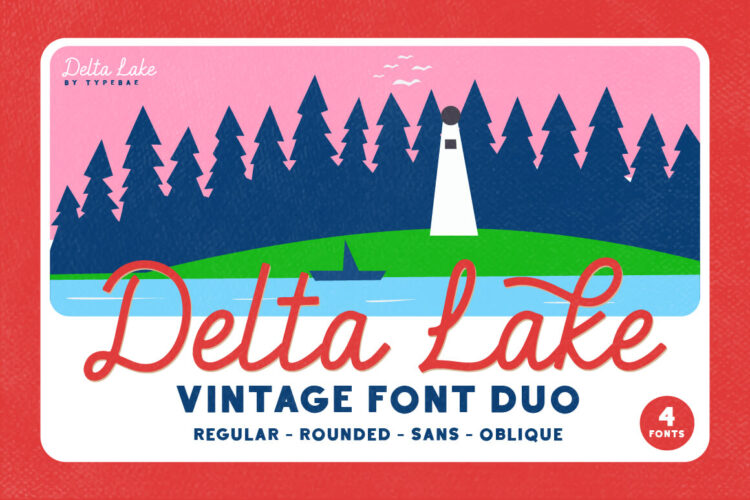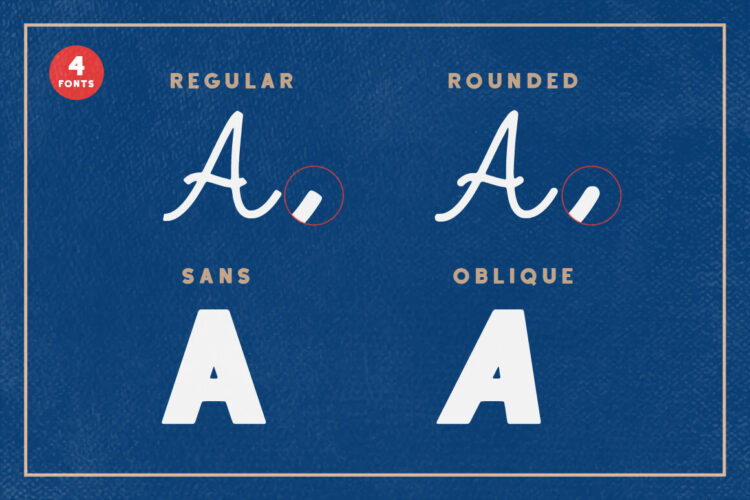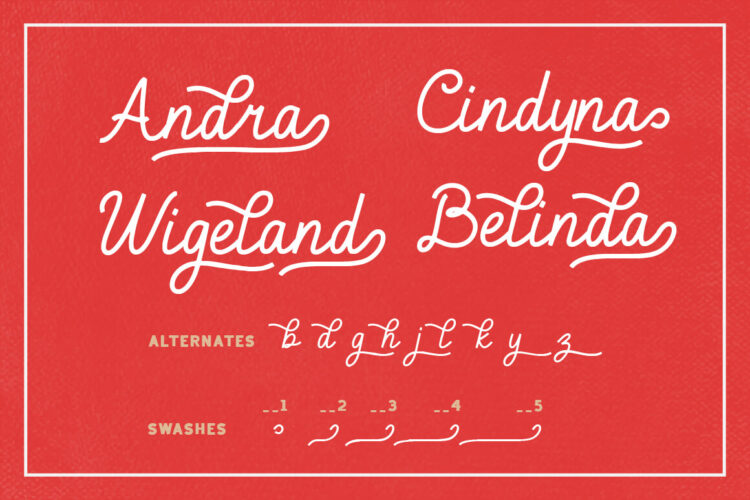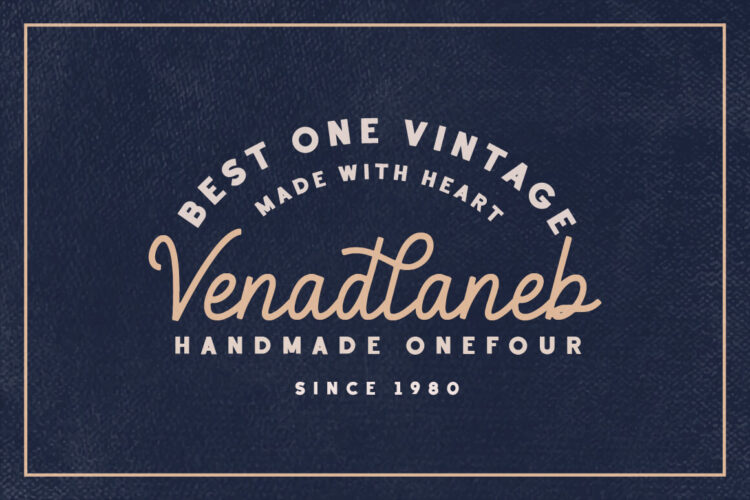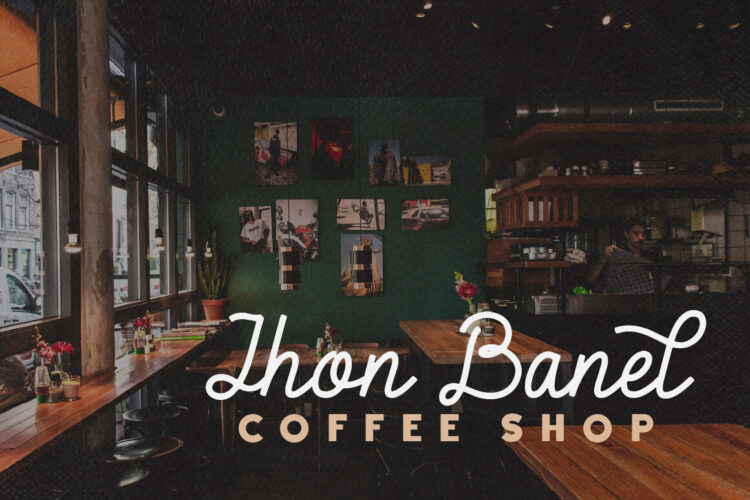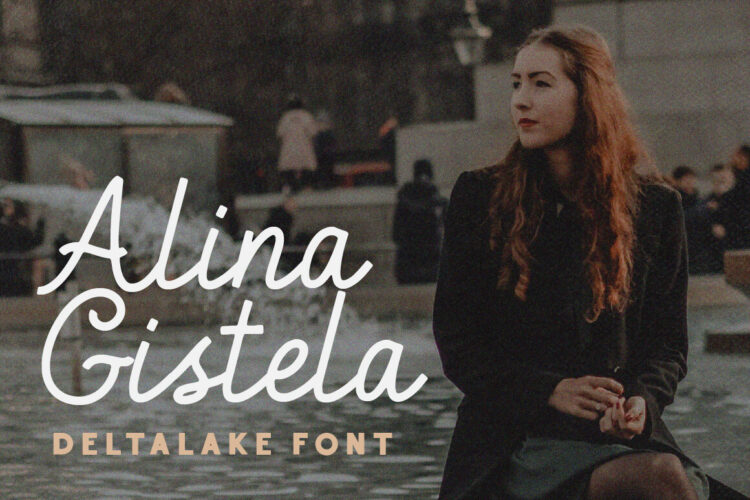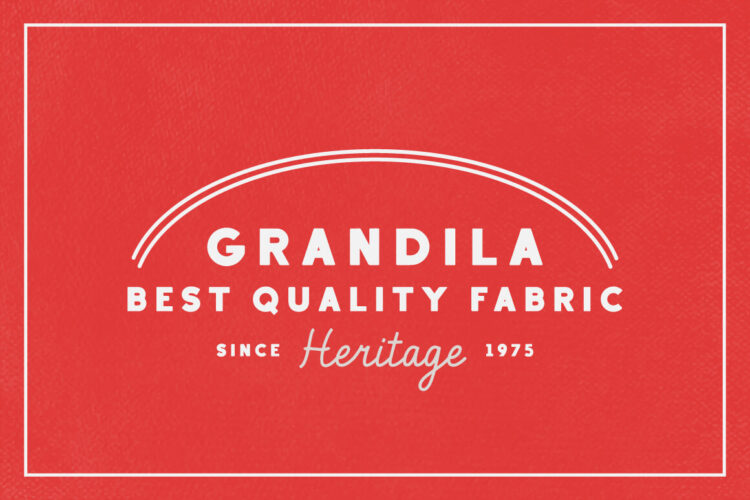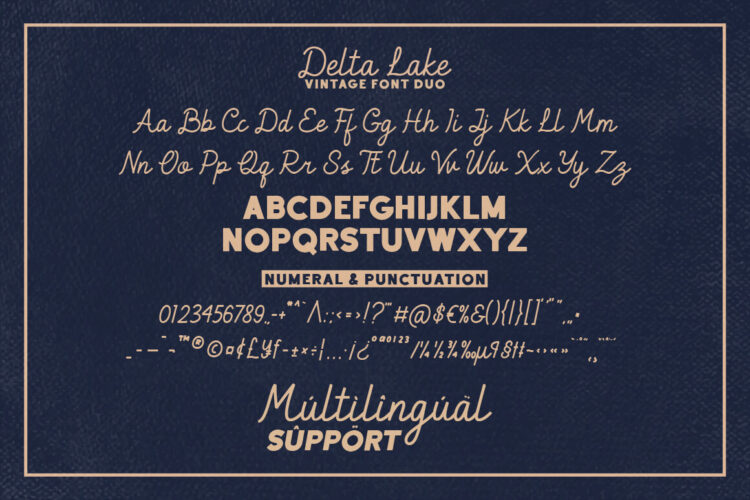
Delta Lake is a beautiful vintage script font paired with a sans-serif font. There are 4 styles available for you to choose from to add a vintage touch to any project.
Features: Stylistic Alternate, Ligature, Swashes, Multilingual & PUA Encoded